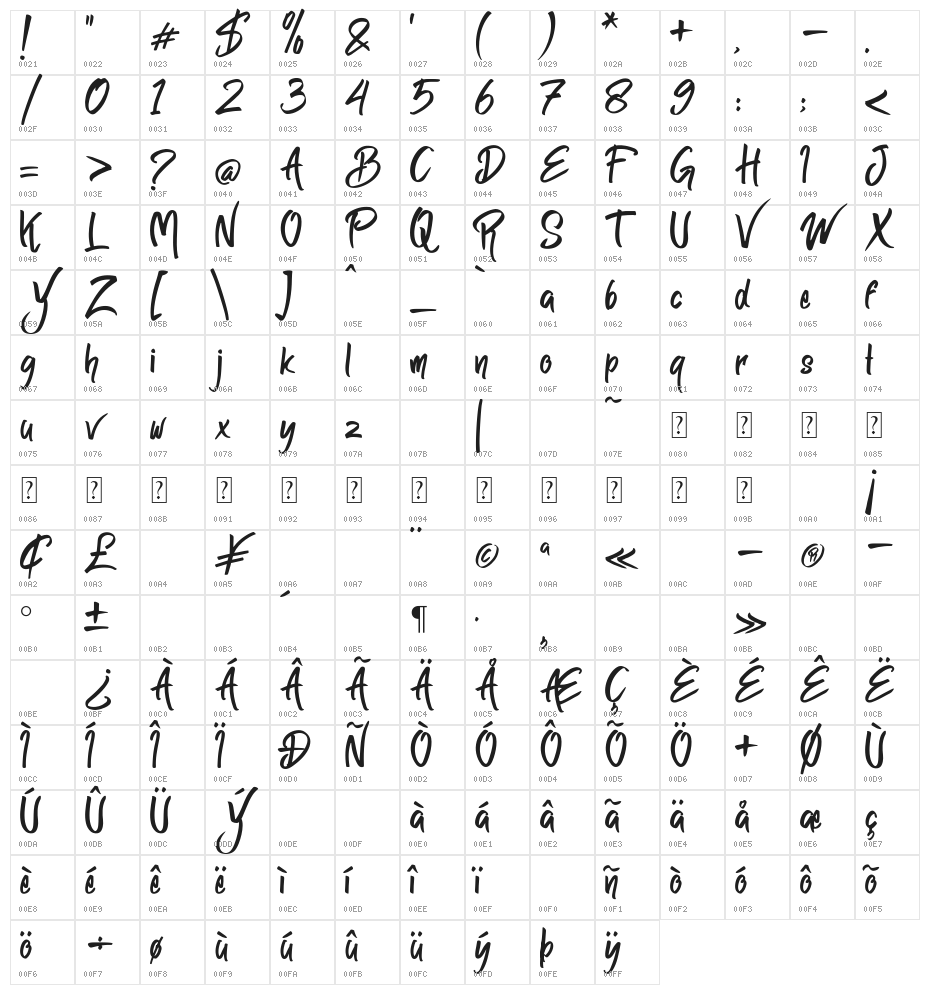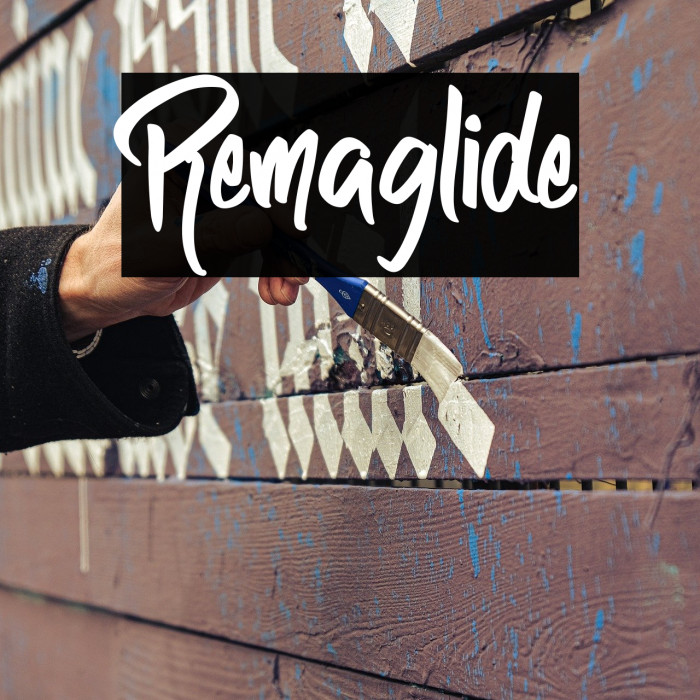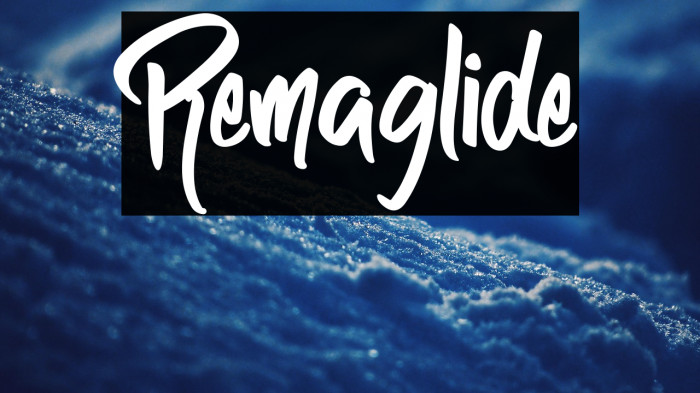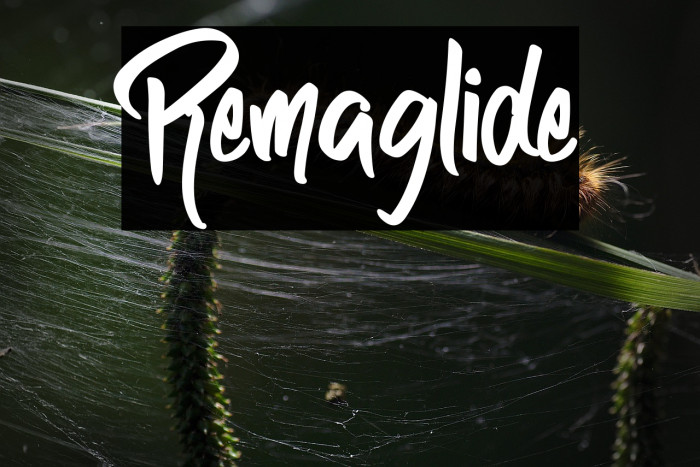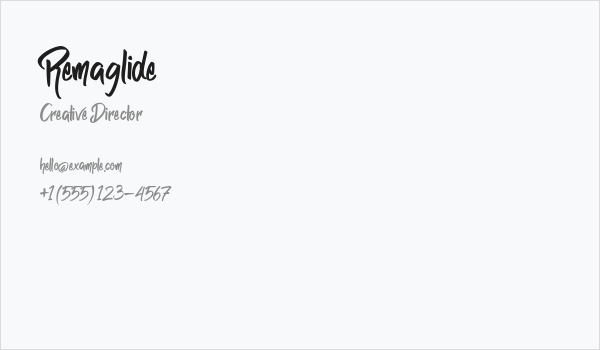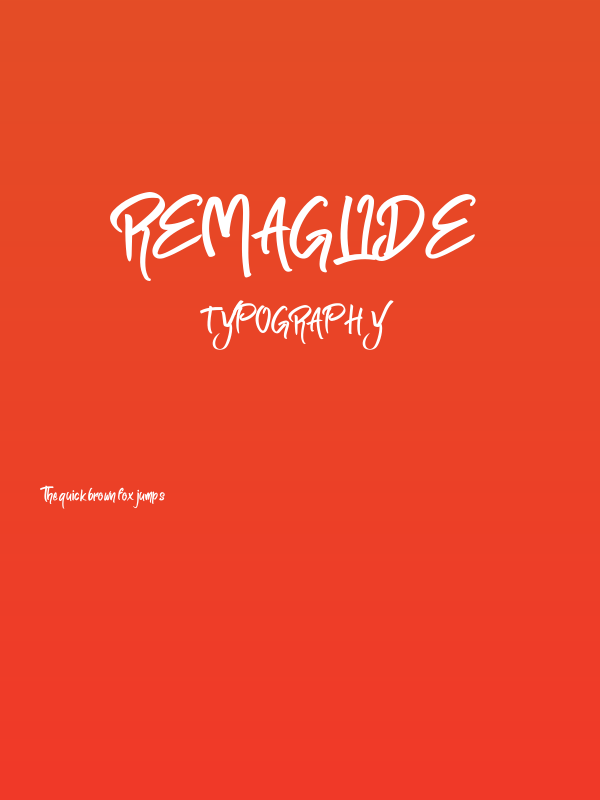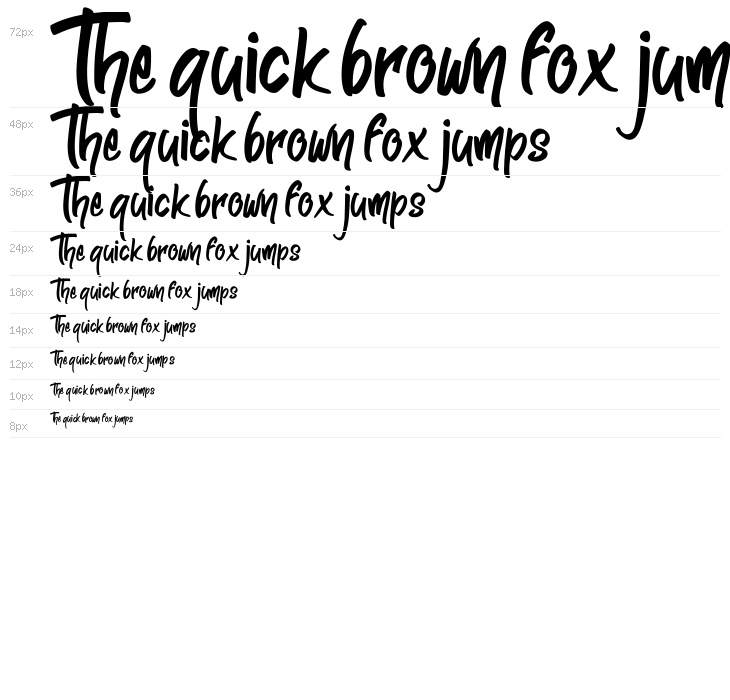
Remaglide Font
| Progetti proposti | Ideal for creative projects such as greeting cards, invitations, posters, and branding materials that require a personal and expressive touch. |